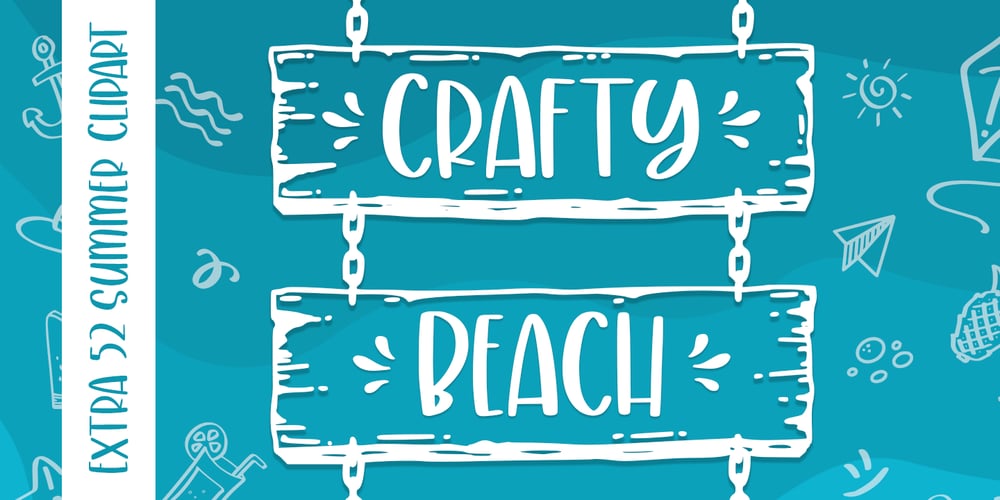
Crafty Beach Font Family was designed by Abo Daniel and published by Abo Daniel. Crafty Beach contains 2 styles and family package options. CRAFTY BEACH-craft font with summer clipart-it is a simple, natural, and fun handwritten font.This font is designed for crafters.It is great for branding, packaging, quotes, t-shirt design, card, banner, cutting, silhouette, and anything of craft project.I create the summer clipart to complete this font. The clipart is very easy to use.Features:- Uppercase- Lowercase- Number & punctuations- Multilingual- Summer Clipart- PUA encodedregards,Abo Daniel Studio